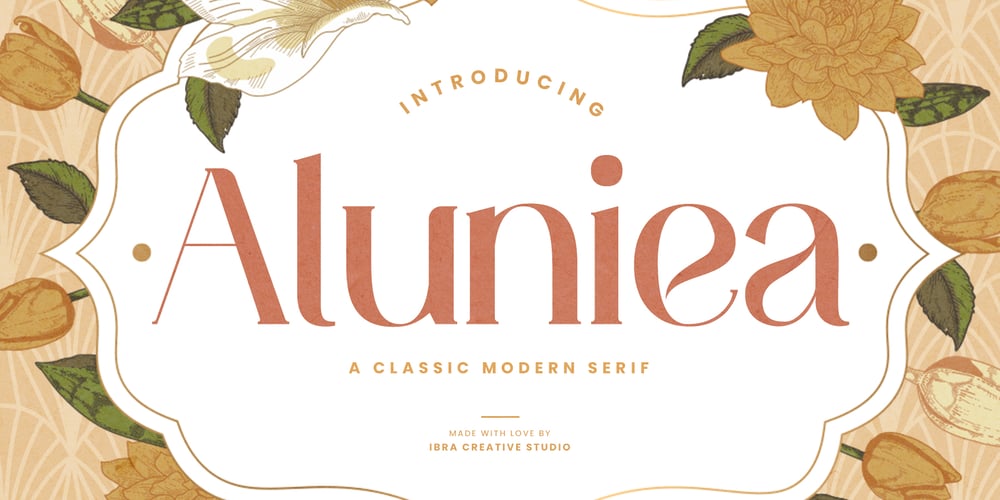
Aluniea Font Family was designed by Roisatul Azizah and published by IbraCreative. Aluniea contains 1 styles and family package options. Aluniea is a classic modern serif typeface that effortlessly marries timeless elegance with contemporary design sensibilities. With its balanced letterforms, graceful strokes, and refined details, Aluniea exudes sophistication and versatility, making it a quintessential choice for a wide range of design applications. The typeface’s subtly flared serifs and harmonious proportions lend it a sense of balance and readability, while its clean lines and distinct character variations provide a distinctive, yet approachable, aesthetic that is perfect for conveying a sense of tradition and refinement in a modern context.